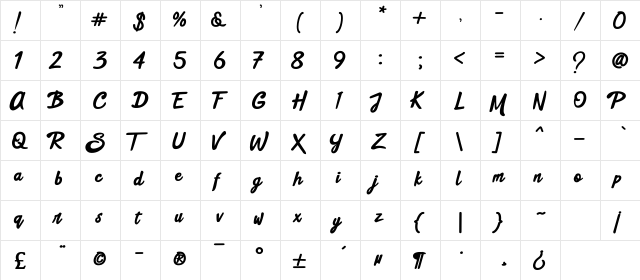
Black Street Regular
| Designer | Lettersiro 2018 |
Design Context for Black Street Typeface
Black Street is a composed and adaptable typeface that performs quietly and consistently across a wide range of design contexts.